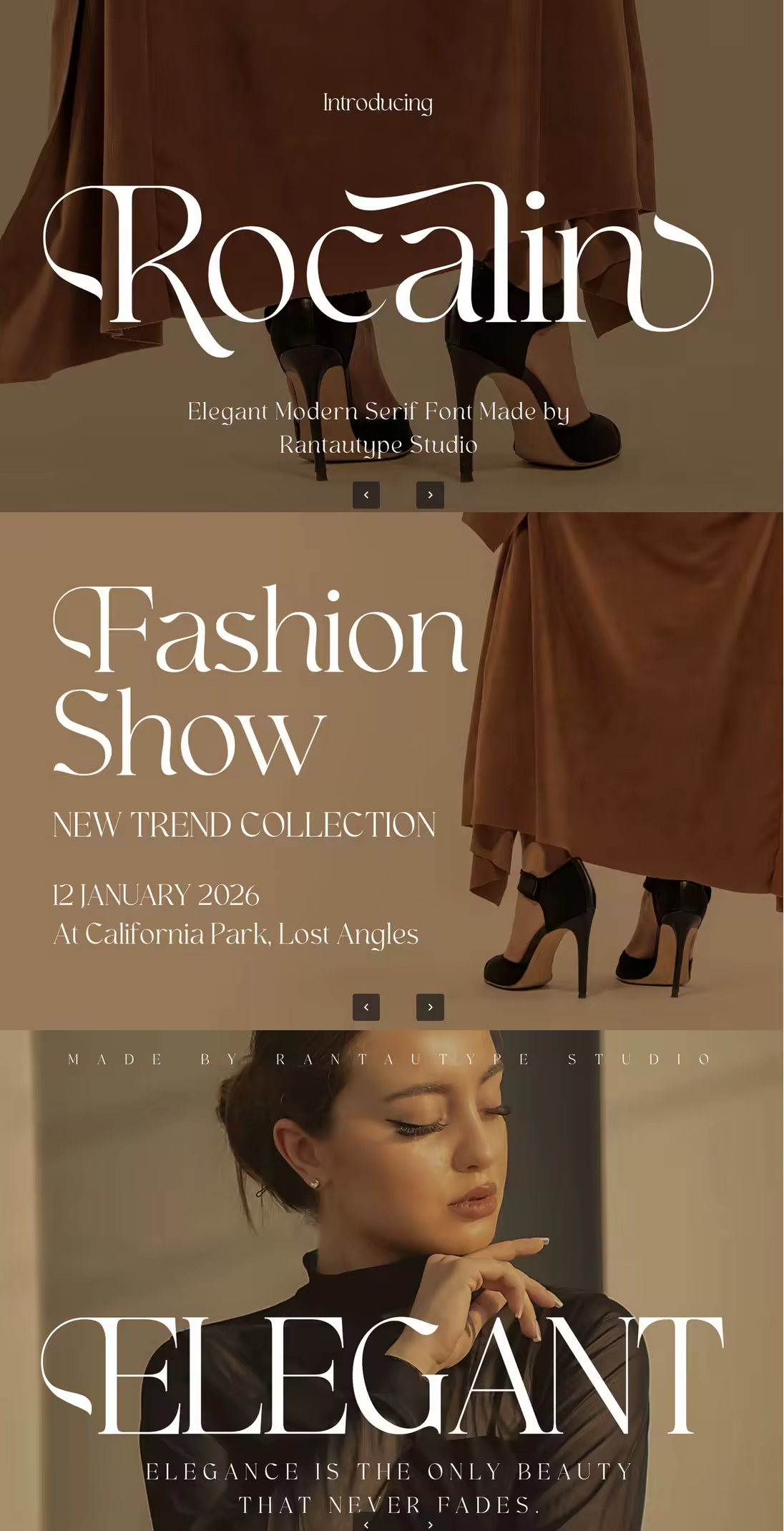
EE - Rocalin Elegant Modern Serif Font DZTKBU9
Rocalin is elgant and modern serif font embrace grace and fashionable. Rocalin is a perfectly choice for any creative endeavor, creating, modern, lifestyle design such as logotype, title, cover, branding, invitations, wedding designs, display and magazine, social media posts, advertisements, printed quotes, product packaging, corporate brand, product designs, labels, photography, watermarks, special events and any other project with elegant touch.
Alternate and Ligature
Support Multilingual Character